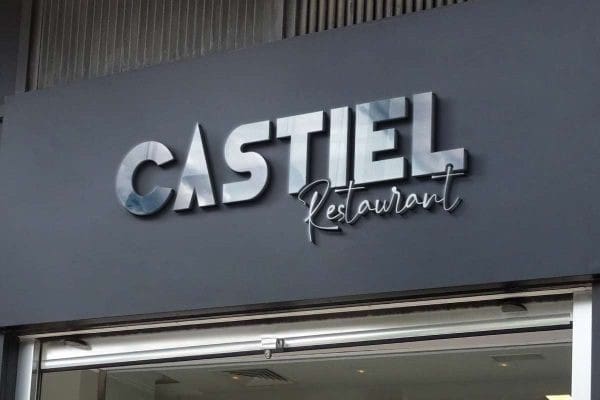
Ice Drink Font
Ice Drink Font is a a modern and trendy sans serif font. Big and bold typeface can emphasize the text you want to add to your design and make it easily recognizable, such as brand image, business card, cover, custom design, invitation, label, magazine, menu, poster, product packaging, quote, signage, web, and more!
Ice Drink Font includes a full set of ALL CAPS for Uppercase and Lowercase Letters, Numerals, Punctuation, and Symbol. This stylish font will be good pairing with other type fonts and suitable for various industries, such as café, barber, beverage brands, event, fashion, food and beverage, photography, printing, publishing, restaurant, etc.